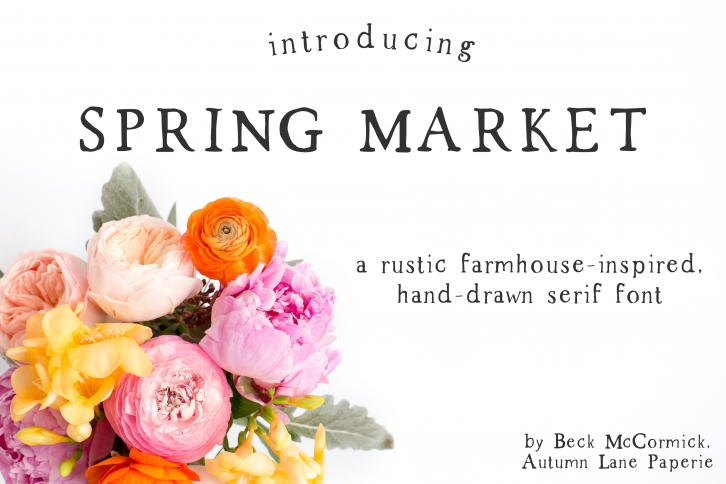
Spring Market is a rustic, farmhouse-style serif font, lovingly hand-drawn on an iPad. Perfect for logos, invitations, & more. Download includes .otf file.